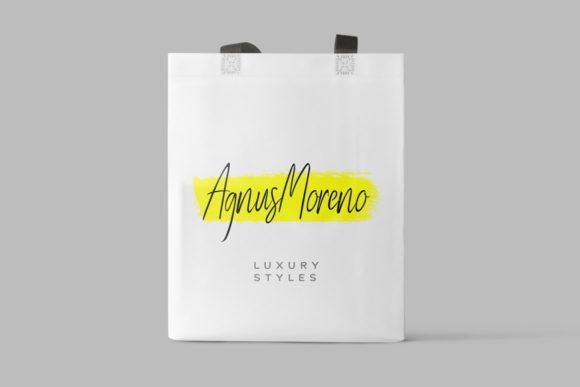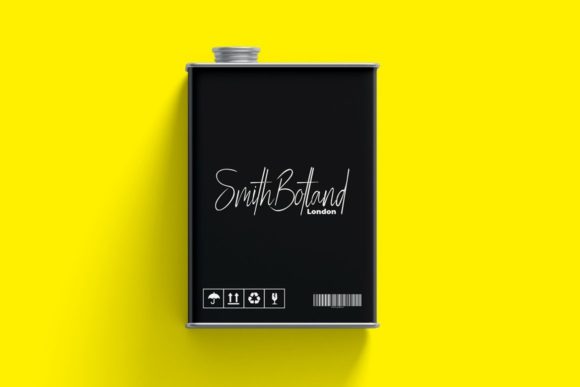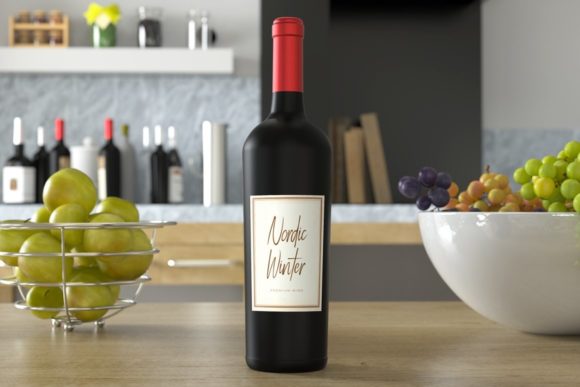
Magnetta Font
About Magnetta Font
Magnetta is a stylish and delicate script font. It has a clean, thin and smooth vibe and it will be a hit for any design that you want to add it to.